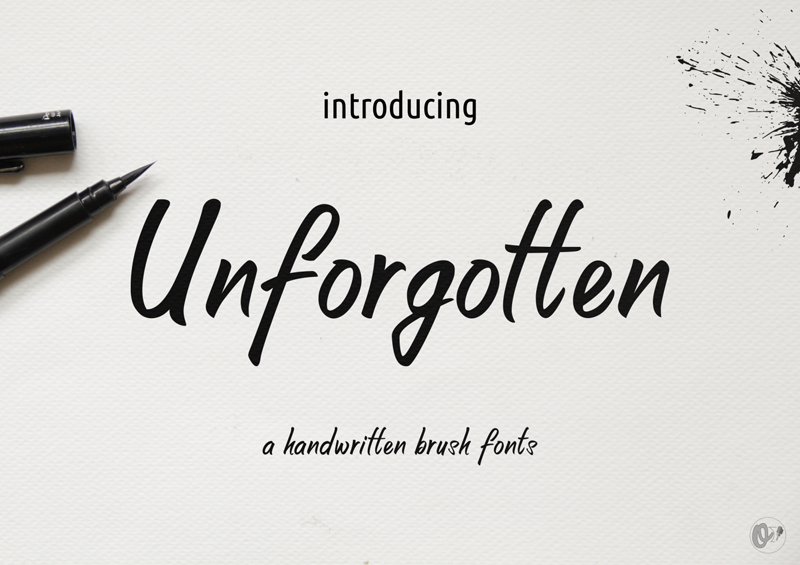
Font name: | Unforgotten |
Author: | Onne Hermawan |
Note by Onne Hermawan | |
Unforgotten is light and casual handwritten font with a unique feel. Get inspired by its authentic vibe. This is a free version for personal use. For the full version can be found in here www.creativefabrica.com/product/unforgotten/ref/162831/ Thank you |